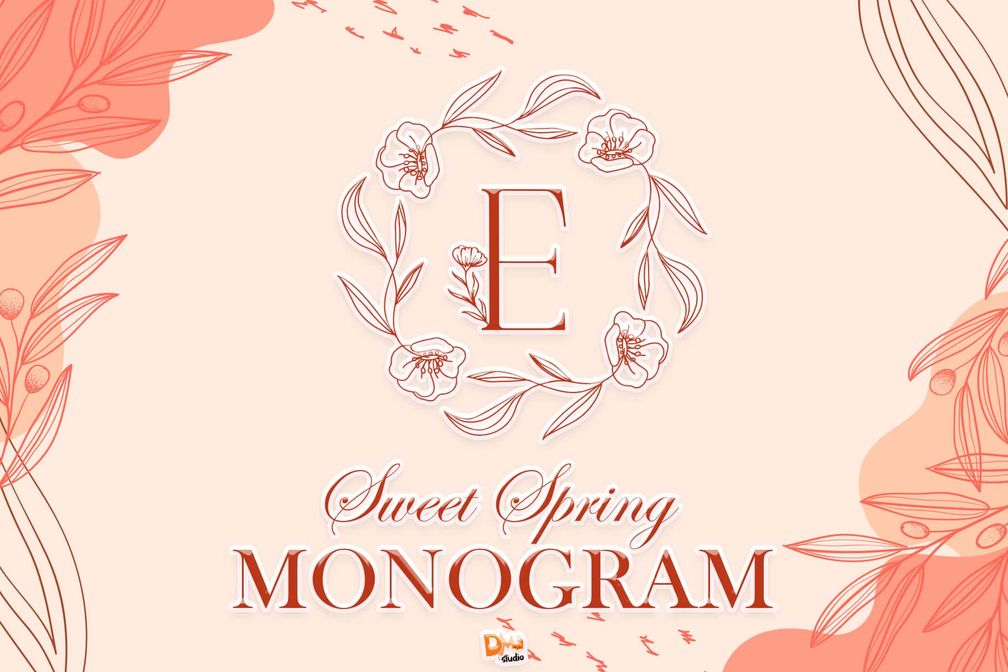
Sweet Spring Monogram
Sweet Spring Monogram – Elegant & Floral Monogram Font
Sweet Spring Monogram is a beautifully designed typeface featuring delicate floral and nature-inspired details, perfect for adding a fresh and elegant touch to any project. Ideal for wedding invitations, luxury branding, personalized stationery, boutique packaging, and artistic monogram designs, this font captures the essence of spring with its graceful curves and botanical elements.
• Delicate Floral & Spring-Inspired Design: A refined blend of nature’s beauty and elegant monogram lettering.
• Perfect for Elegant & Luxury Projects: Ideal for wedding stationery, logos, branding, and personalized gifts.
• Ornamental & Timeless Aesthetic: A sophisticated mix of floral elegance and artistic monogram details.